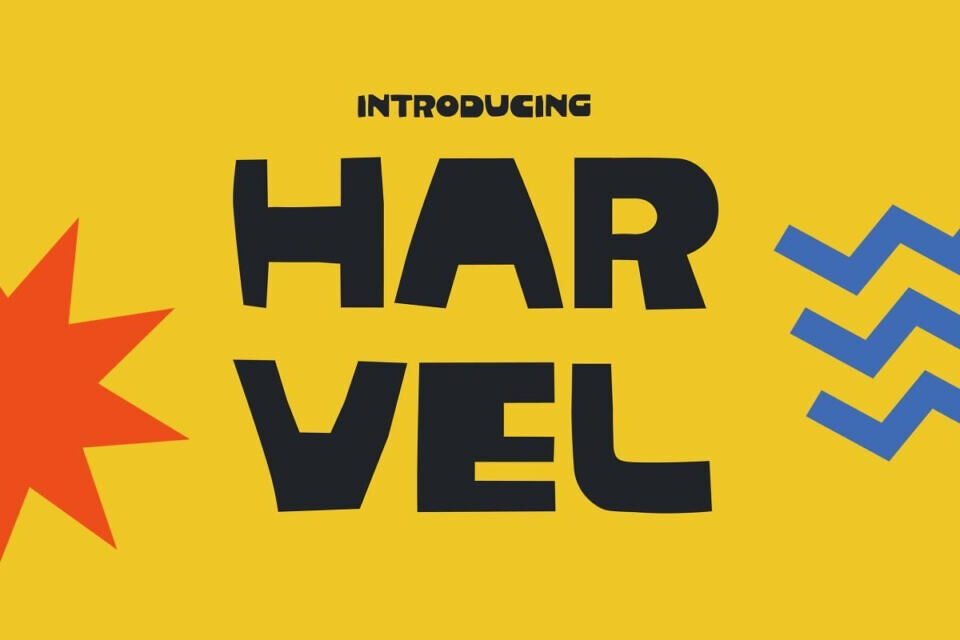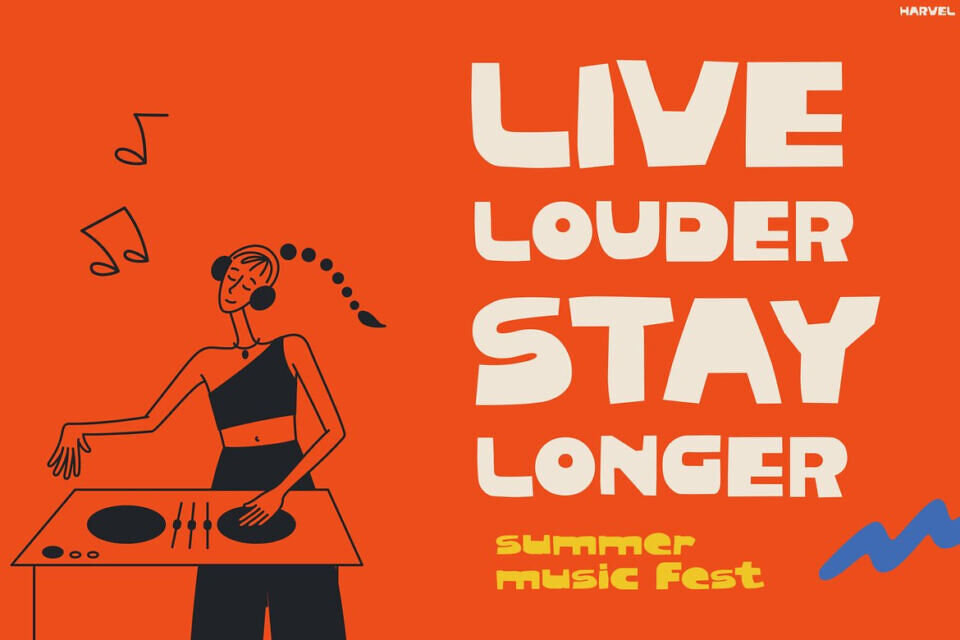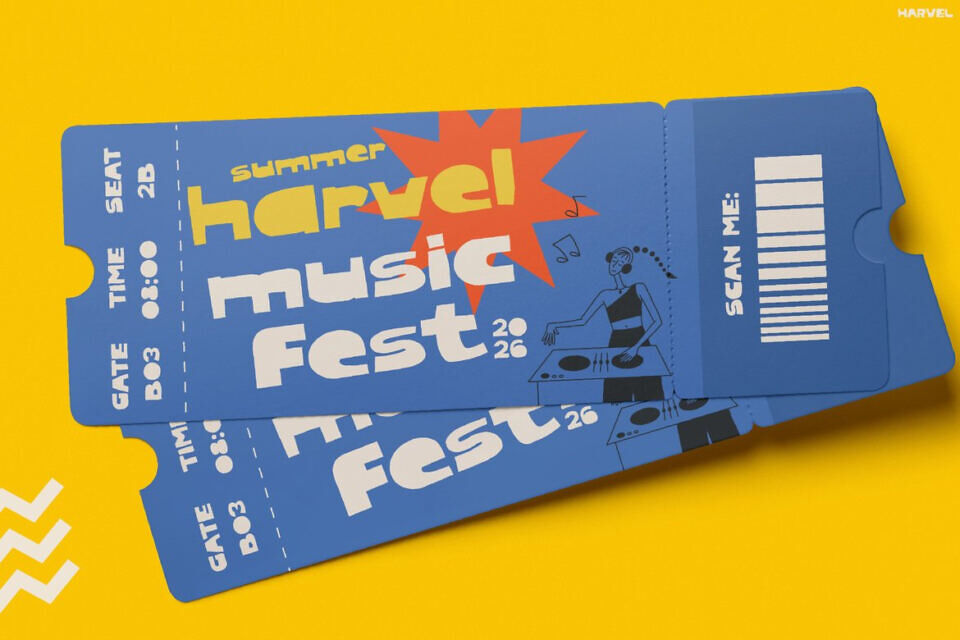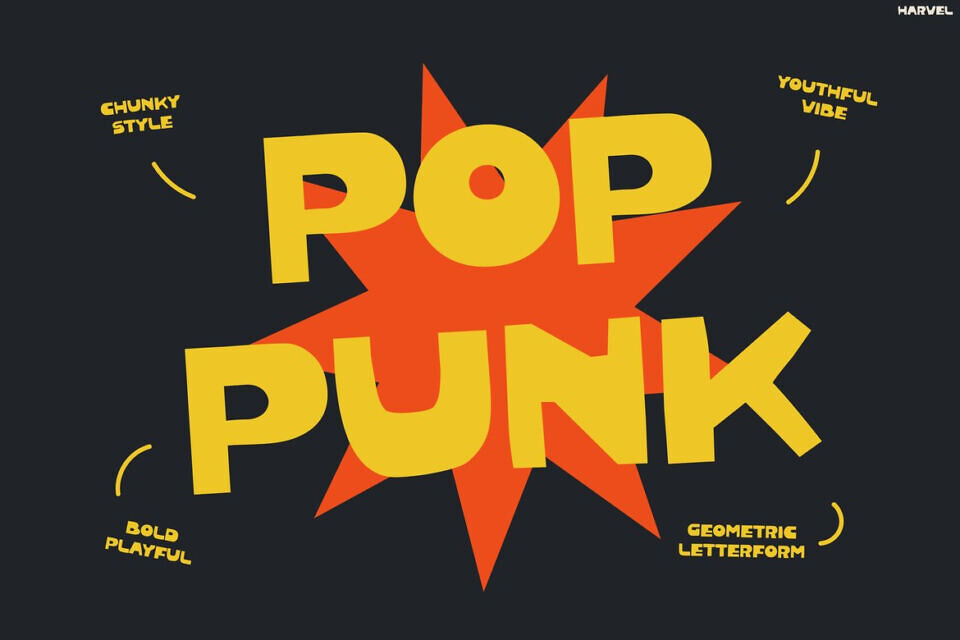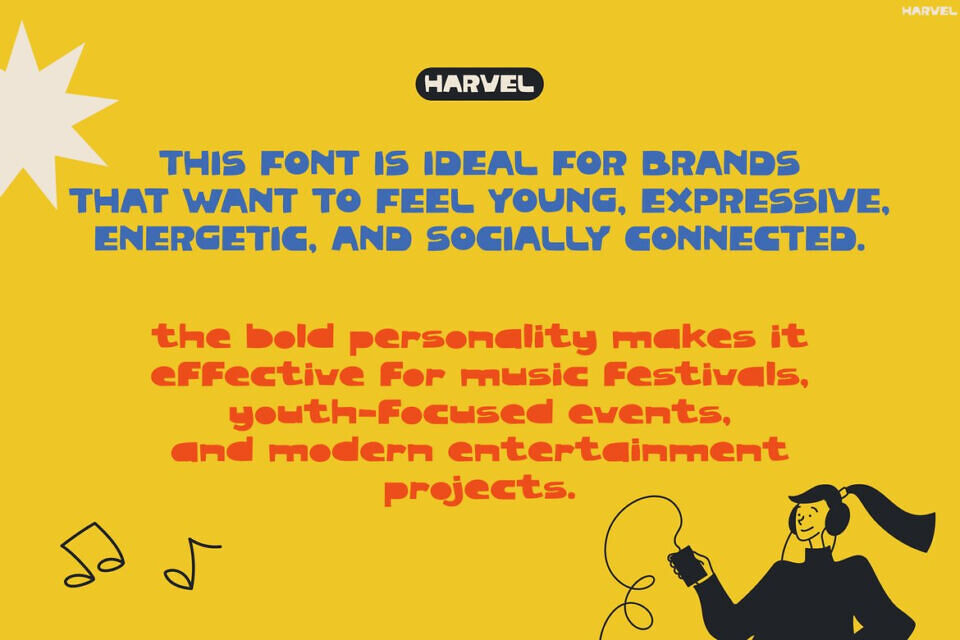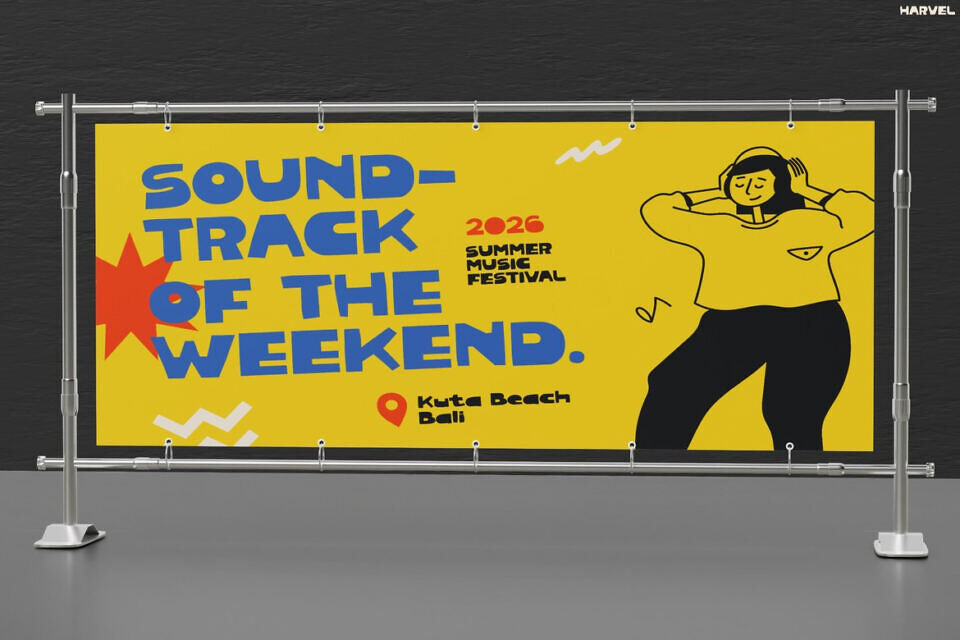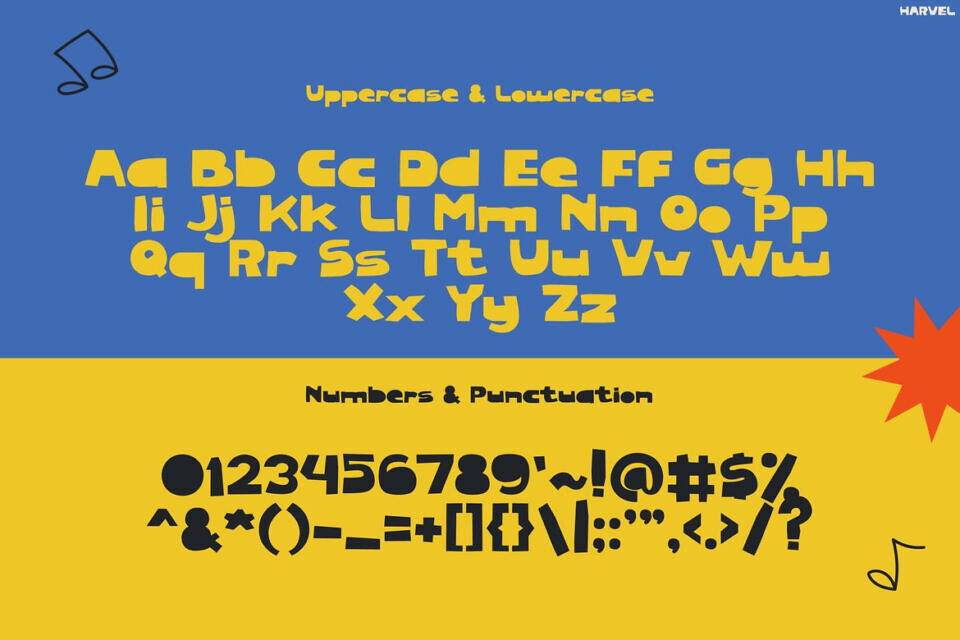
Harvel is a vibrant, energetic font that injects a playful spirit into projects. Its geometric shapes and curves evoke a retro feel, grabbing attention with ease. The bold design creates a strong visual impact while remaining easy to read.
Perfect for headlines, posters, and branding, Harvel adds a dynamic touch to designs, making them memorable and engaging. Its fun personality brings a fresh, energetic look to promotional materials and playful branding, creating a sense of movement and excitement.